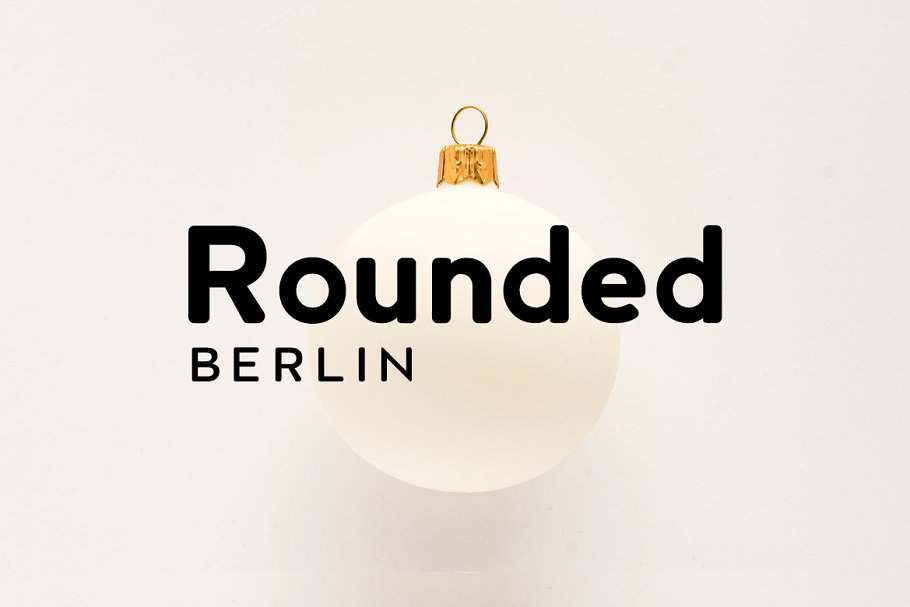
Berlin Rounded Font
Berlin Rounded Font is perfect for modern German businesses, contemporary European branding, tech startup identity, sleek product packaging, minimalist architectural firms, and progressive urban campaigns. Its sophisticated character makes it ideal for design studios, modern museums, innovative software companies, contemporary art galleries, European fashion brands, and any project requiring Bauhaus-inspired elegance with German precision and contemporary European sophistication.
This font is exciting because it embodies the perfect fusion of German engineering precision and contemporary design philosophy while delivering exceptional functionality for modern international communications. The meticulously rounded letterforms reflect Berlin's transformation into a creative capital, combining traditional Germanic attention to detail with the progressive spirit of modern European design, creating typography that appeals to global audiences seeking quality and innovation.
The Berlin Rounded Font family typically includes Light, Regular, Medium, and Bold weights with clean alternates, European-inspired ligatures, and minimalist elements that enhance its contemporary personality. This comprehensive collection provides designers with precise tools for creating sophisticated brand systems that maintain German quality standards while offering versatility for various international applications requiring European aesthetic appeal and modern functionality.